Army fonts are a powerful design choice for projects that need to convey strength, discipline, and authority right from the start. Whether you’re creating a military-themed poster, branding for tactical gear, or a game interface with combat elements, these fonts offer the perfect blend of rugged aesthetics and clear readability.
The appeal of army fonts lies in their ability to evoke order, command, and structure. From stencil styles inspired by classic equipment markings to distressed typefaces that echo the wear of wartime use, these fonts bring a raw and authentic touch to any design. Their strong lines and impactful presence make them ideal for headlines, logos, labels, and more.
Designers often turn to army fonts when working on military simulations, action-packed visuals, or even vintage-inspired layouts. With their bold character and undeniable edge, these fonts help establish an instant connection to themes of power and resilience. If you’re looking to add that commanding feel to your next project, army fonts are an excellent place to start.
Army Fonts
Military Poster
Military Poster is a commanding army font that instantly adds authority to any design. With its strong lines and bold structure, it’s perfect for posters, headlines, or military-themed graphics that need to exude discipline and strength.
Stamped
Stamped delivers the rugged authenticity of traditional military documents. This army font mimics the look of old rubber stamps, making it ideal for vintage-style projects, war-themed designs, or anything that needs an official, worn-in appearance.
D Day Stencil
D Day Stencil brings the look of WWII equipment markings to your work. This classic army font reflects the utilitarian style of military stencils, making it ideal for historical designs, tribute posters, or any layout that channels wartime grit.
Capture Smallz
Capture Smallz is a compact army font with maximum impact. Its condensed design is perfect for bold titles, labels, or military badges where space is limited but presence is everything.
Army Stamp
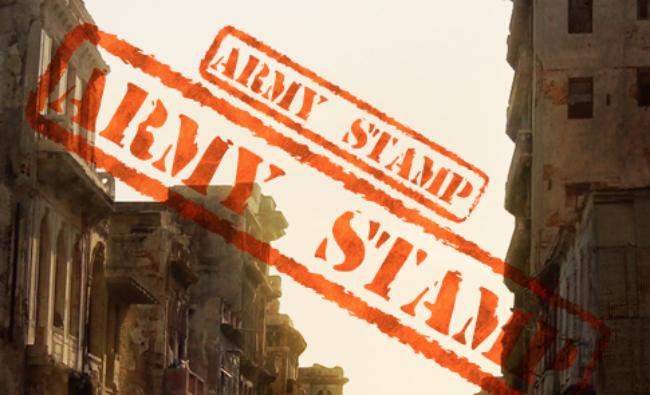
Bronx Bystreets
Bronx Bystreets mixes urban energy with military style. This gritty army font feels like it belongs in a combat zone, perfect for action games, street-themed graphics, or designs that need to look tough and tactical.
Punishment
Punishment is a hard-hitting army font that doesn’t hold back. Its bold, blocky letters make a powerful statement in military posters, tactical branding, or projects that require a no-nonsense look.
Wargate
Wargate is a structured army font designed to represent power and protection. It’s great for security brands, tactical teams, or any military project that wants to communicate strength and precision.
Panfleta Stencil
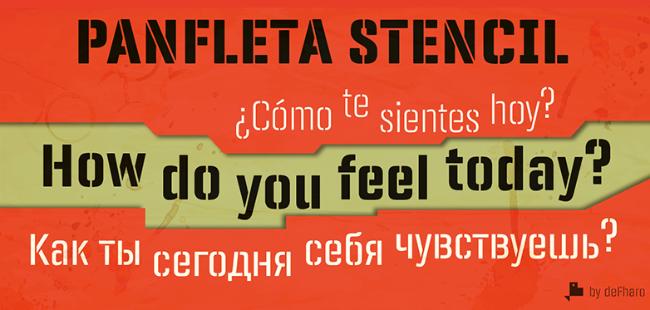
Stenciland
Stenciland blends military stencil tradition with clean design. As an army font, it suits industrial projects, modern branding, or functional signage that needs clear readability with a rugged touch.
Lordcorps
Lordcorps is an army font with high-ranking style. It brings order, hierarchy, and a dignified presence to military brochures, veteran tributes, and defense contractor branding.
BroshK
BroshK adds a rebellious edge to classic army fonts. With its raw, nonconforming style, it’s a great pick for bold branding, tactical games, or unconventional military themes.
Alberto Stencil
Alberto Stencil brings warmth to a disciplined look. This army font is clean and friendly while retaining that classic stencil vibe—ideal for honoring military service, memorials, or informative displays.
Army Buster
Built for maximum impact, Army Buster is a bold army font that screams firepower. Perfect for action games, military posters, or designs that want to bring out the intensity of combat.
Warzone Stencil
Warzone Stencil captures the urgency of battlefield communication. With its bold cuts and clear readability, this army font is great for simulations, tactical gear, or realistic war-themed artwork.
Aero Matics Stencil
Aero Matics Stencil merges aerospace precision with military toughness. This army font is perfect for aviation design, manuals, or anything requiring technical accuracy and bold visuals.
Damage Inc
Damage Inc is a high-impact army font that reflects military-grade force. It’s a go-to choice for explosive visuals, game branding, or designs that thrive on raw power.
Grenade Stencil
Small but mighty, Grenade Stencil delivers compact force. This army font works well in headlines and logos where strong military presence and explosive style are required.
Hand Printing Press Eroded
Hand Printing Press Eroded is worn and weathered like old military equipment. This distressed army font is perfect for war documents, vintage posters, or anything that shows the scars of time.
Comando Valenciano
Comando Valenciano brings elite force flair to military type. This army font reflects precision and discipline, ideal for special ops branding, tactical teams, and high-level operations.
War Machine Stencil is a bold army font with industrial power. Its crisp stencil cuts and armored design make it great for posters, packaging, or branding that demands strength.
Stencil Style New
Stencil Style New gives the classic army stencil font a modern update. Sleek and sharp, it’s great for military gear labels, urban graphics, or any clean-cut design with a tactical edge.
Shattered
Shattered is an aggressive, fragmented army font that breaks the mold. It’s bold and chaotic, perfect for action-packed posters, warzone art, or game titles that need a jarring impact.